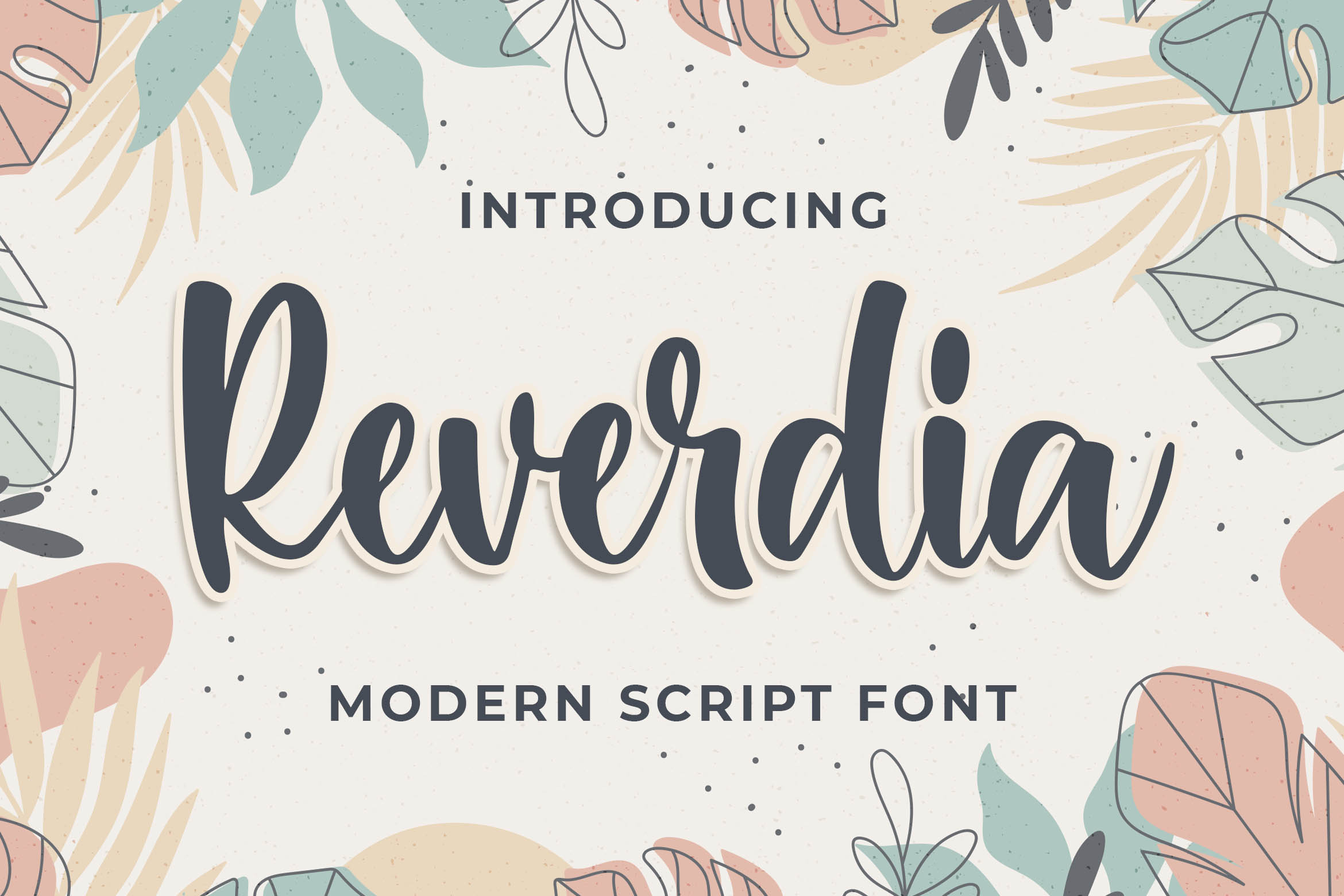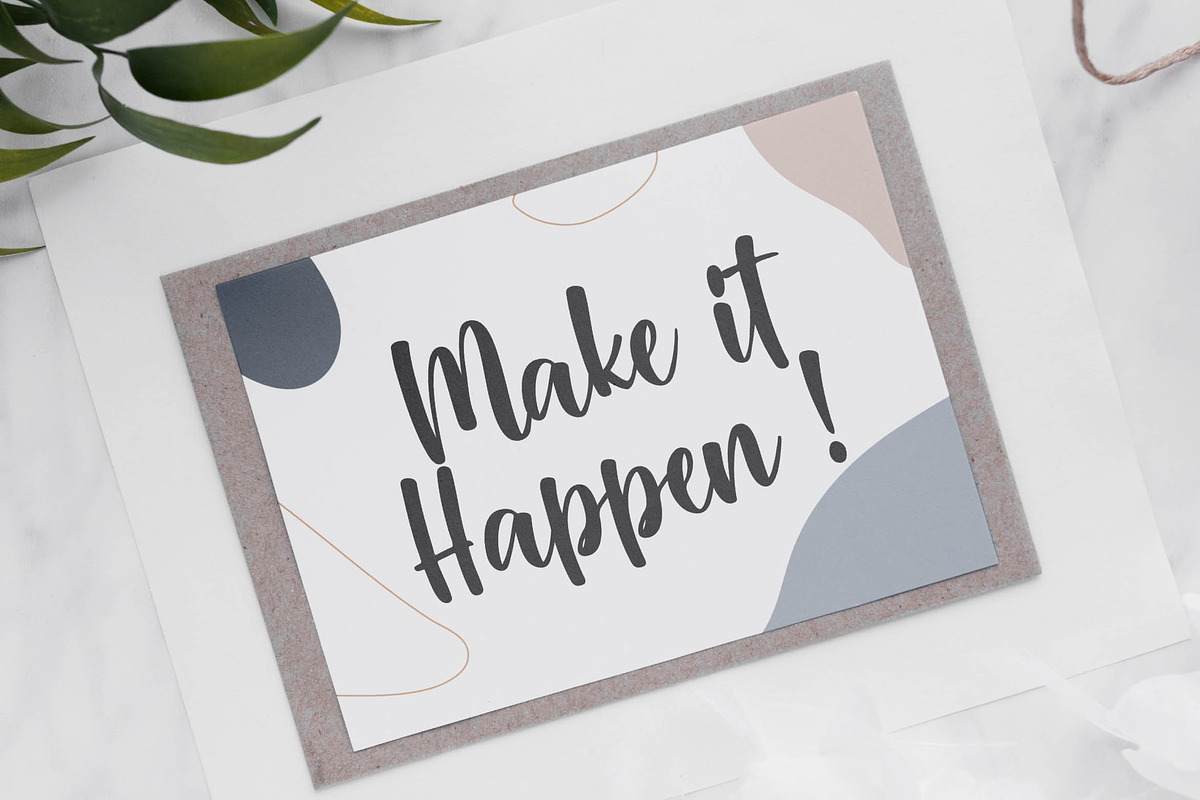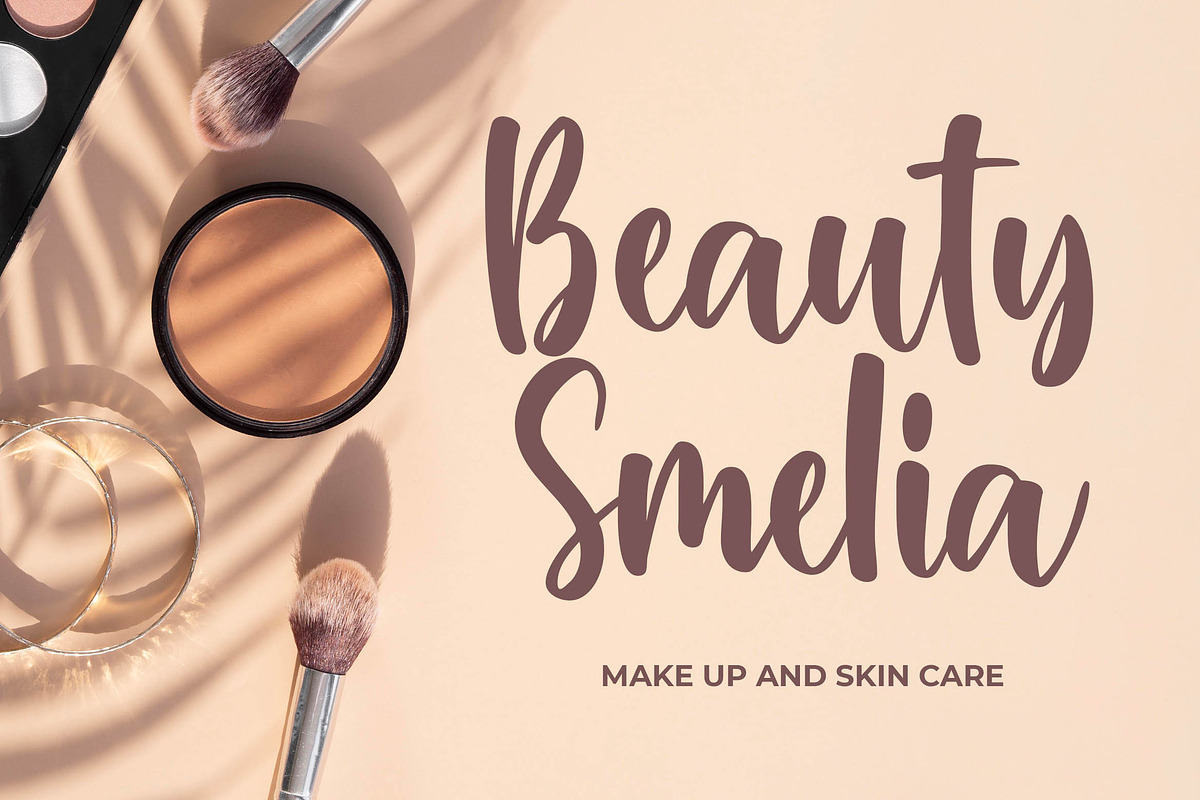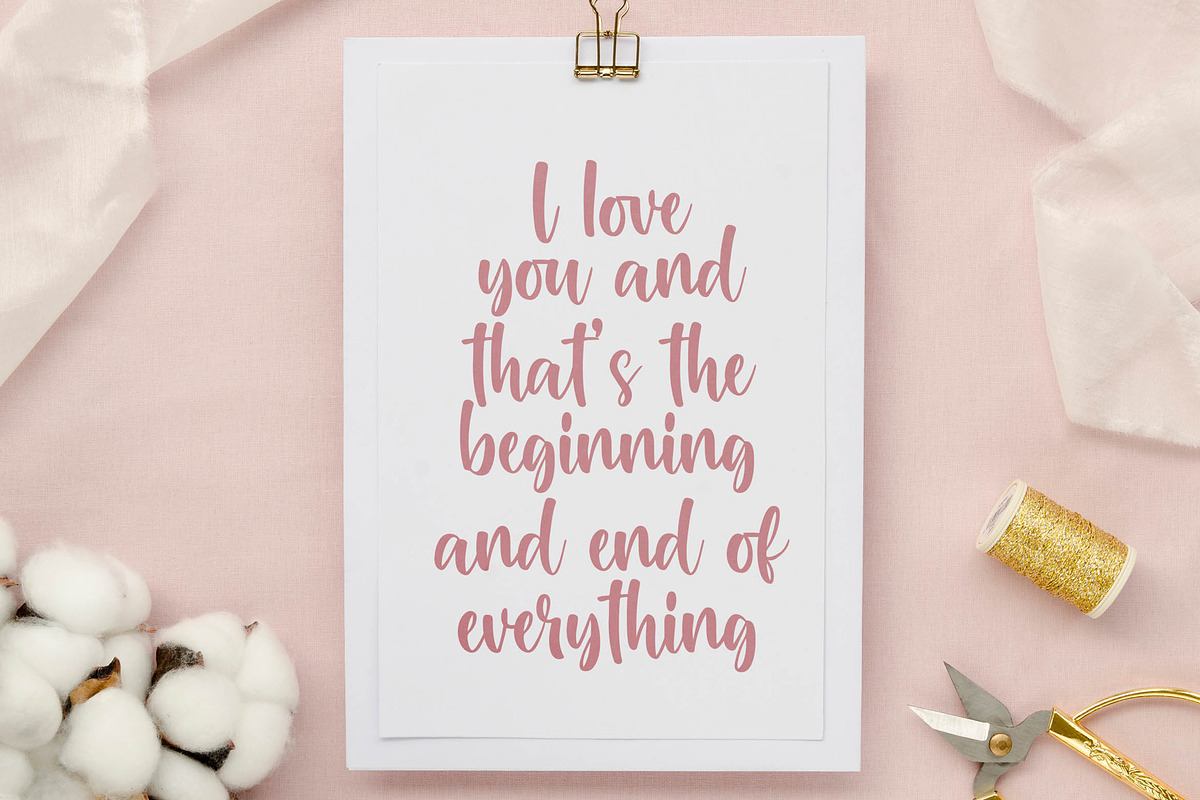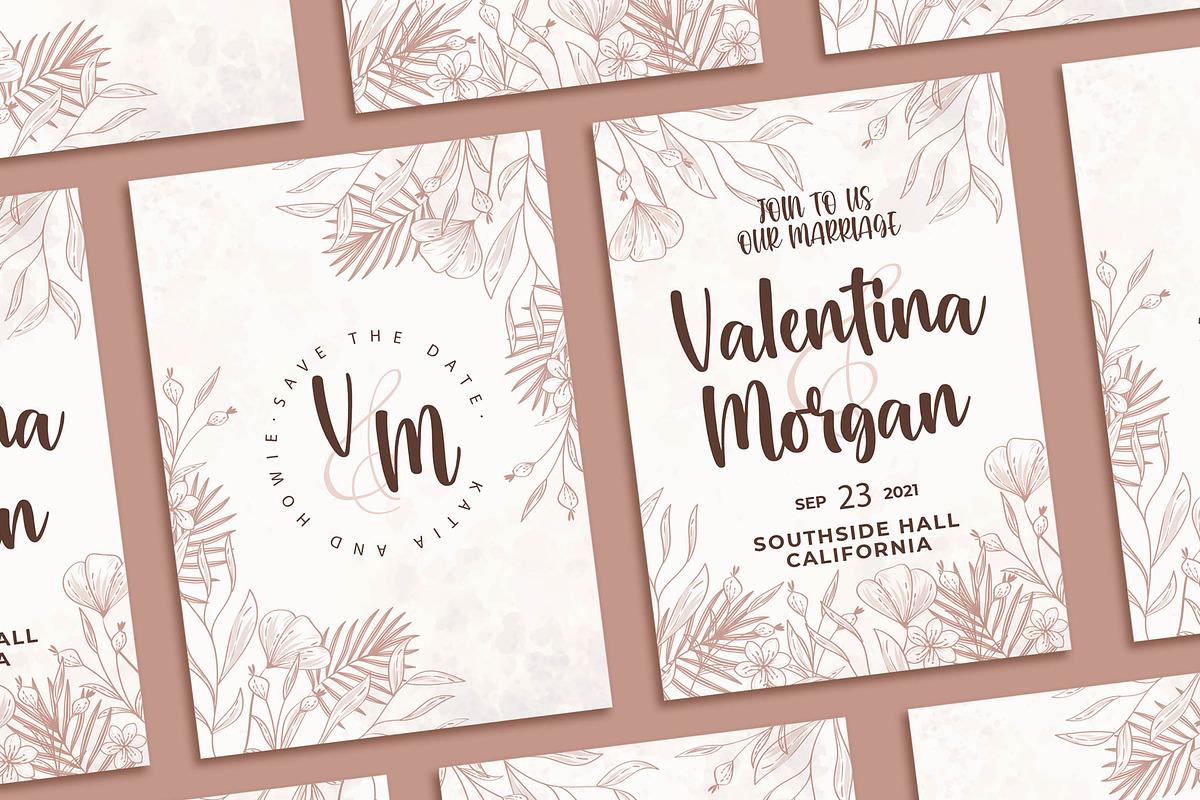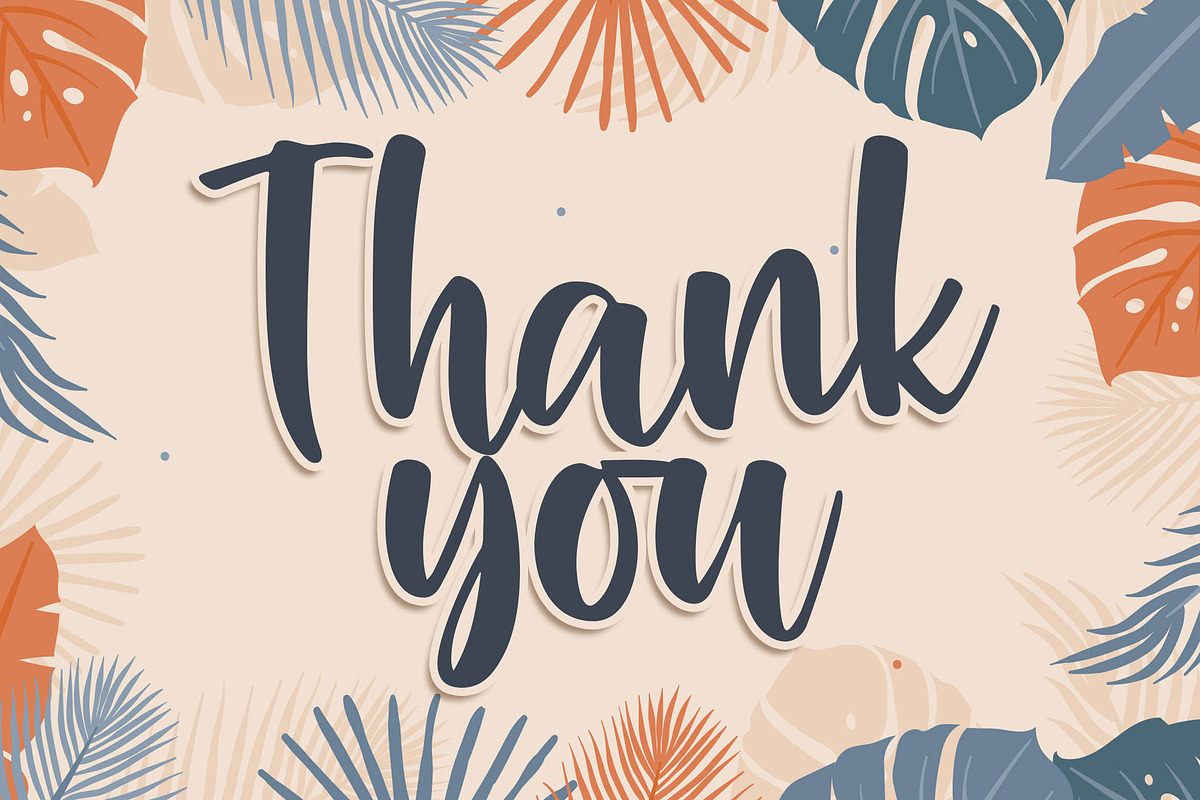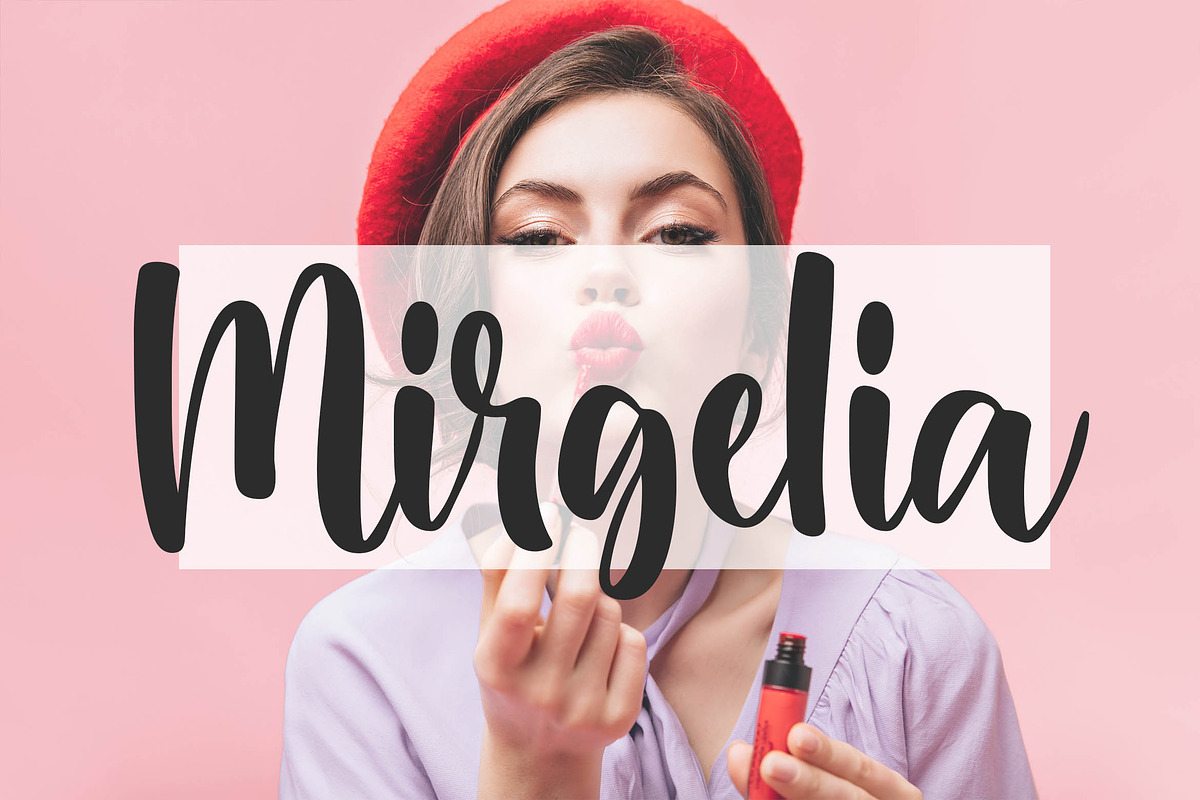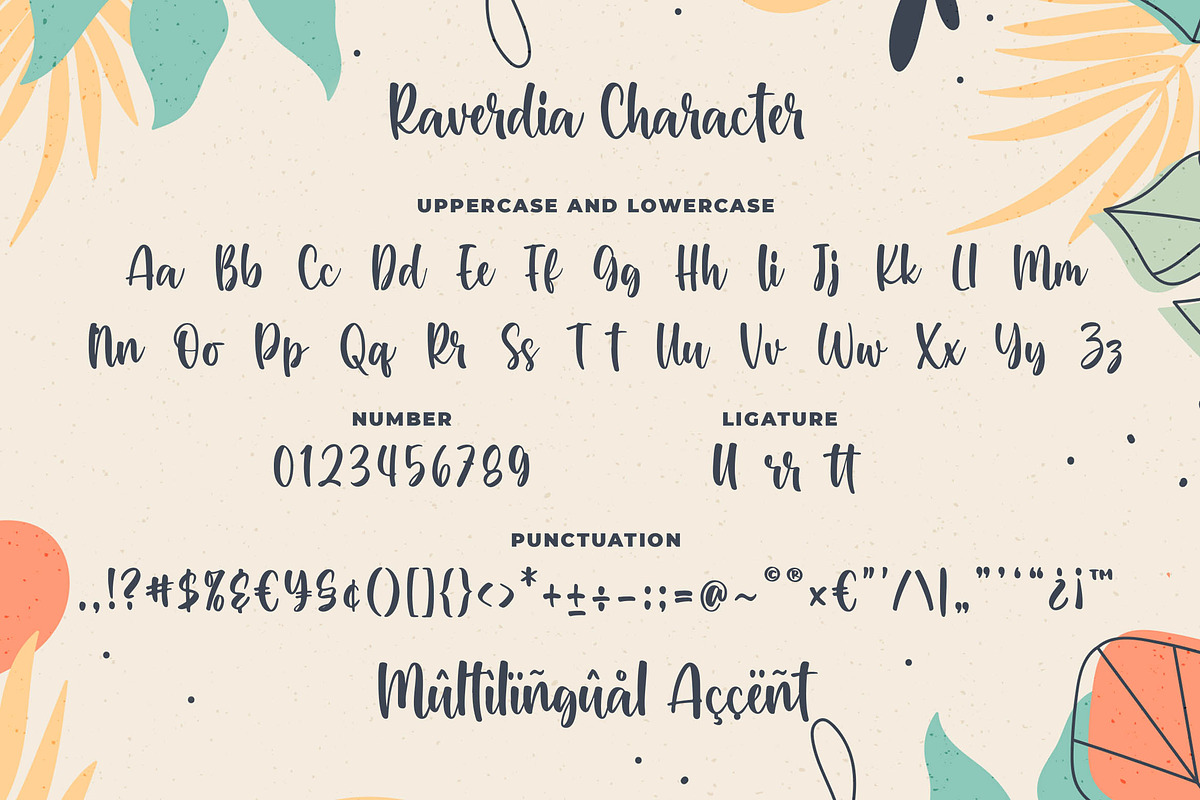
Raverdia Modern Script Font
Introducing of our new product the name is Raverdia Modern Script Font, Raverdia inspired by Bouncy Calligraphy style with a fun theme very good for Logotype, kids poster, flyer, childrenbook, cartoon, comic etc